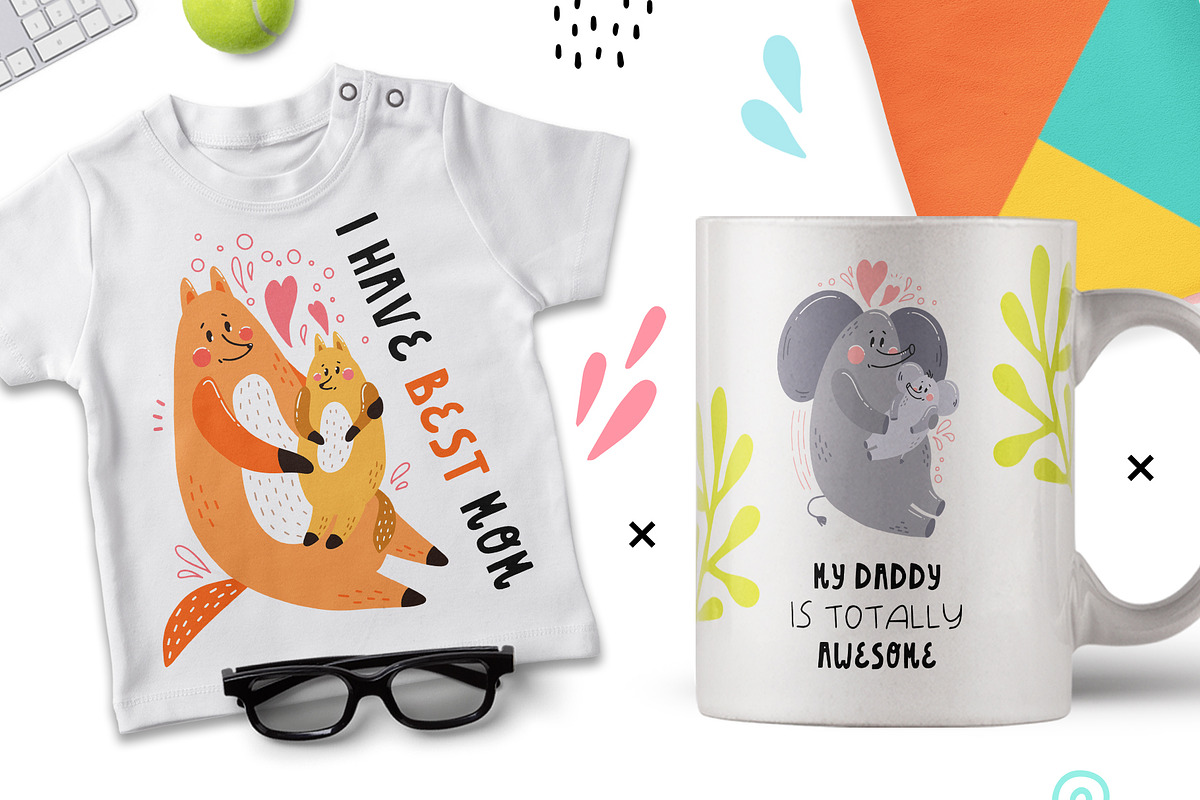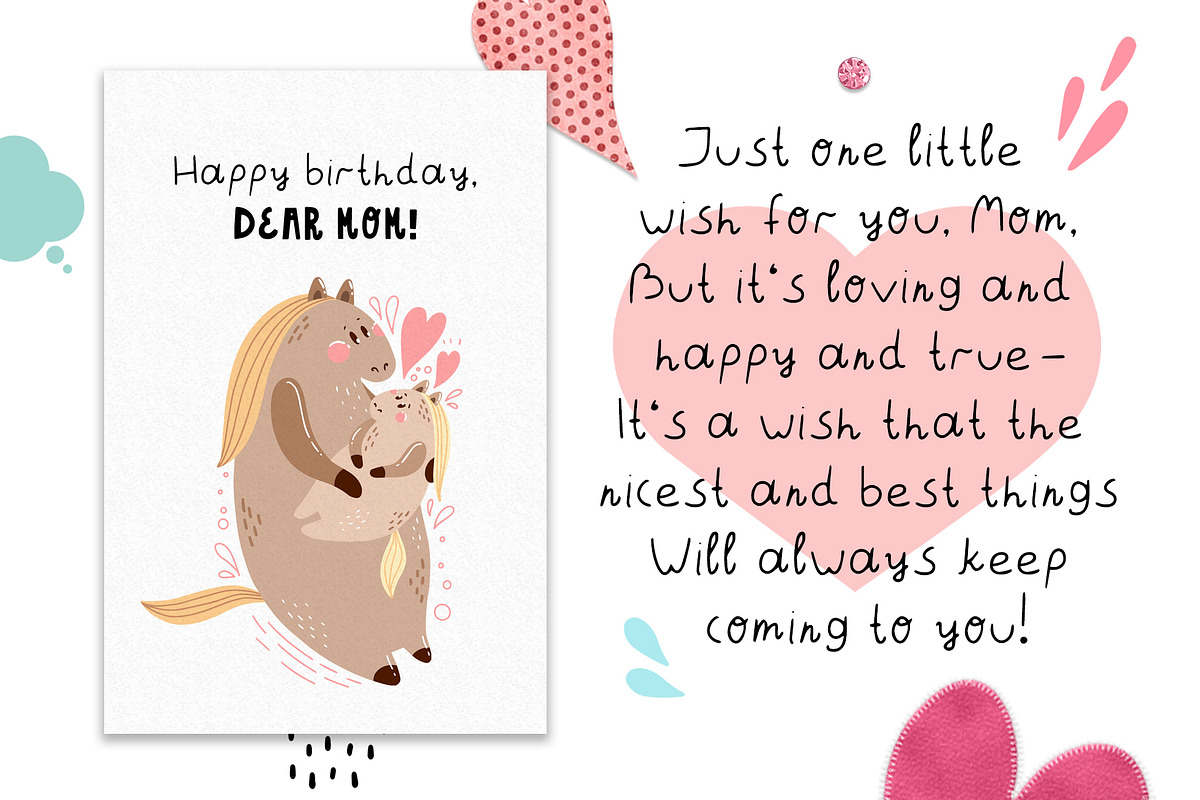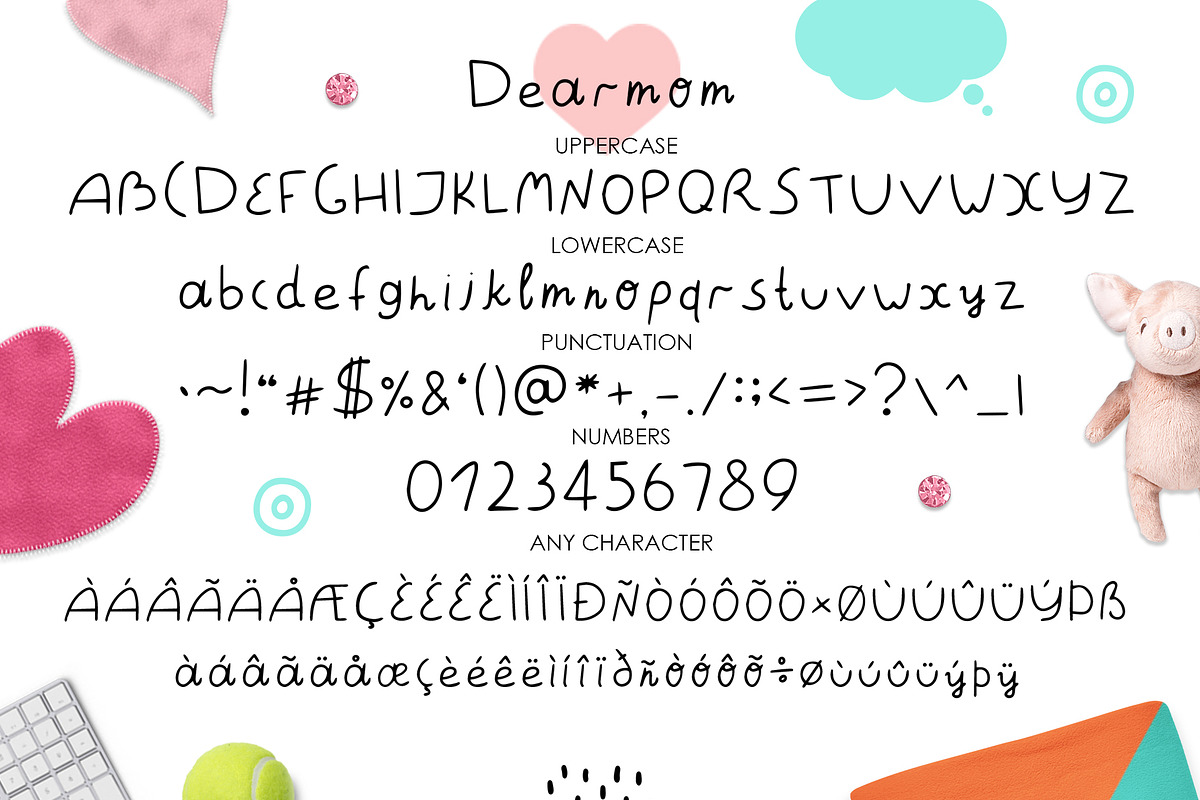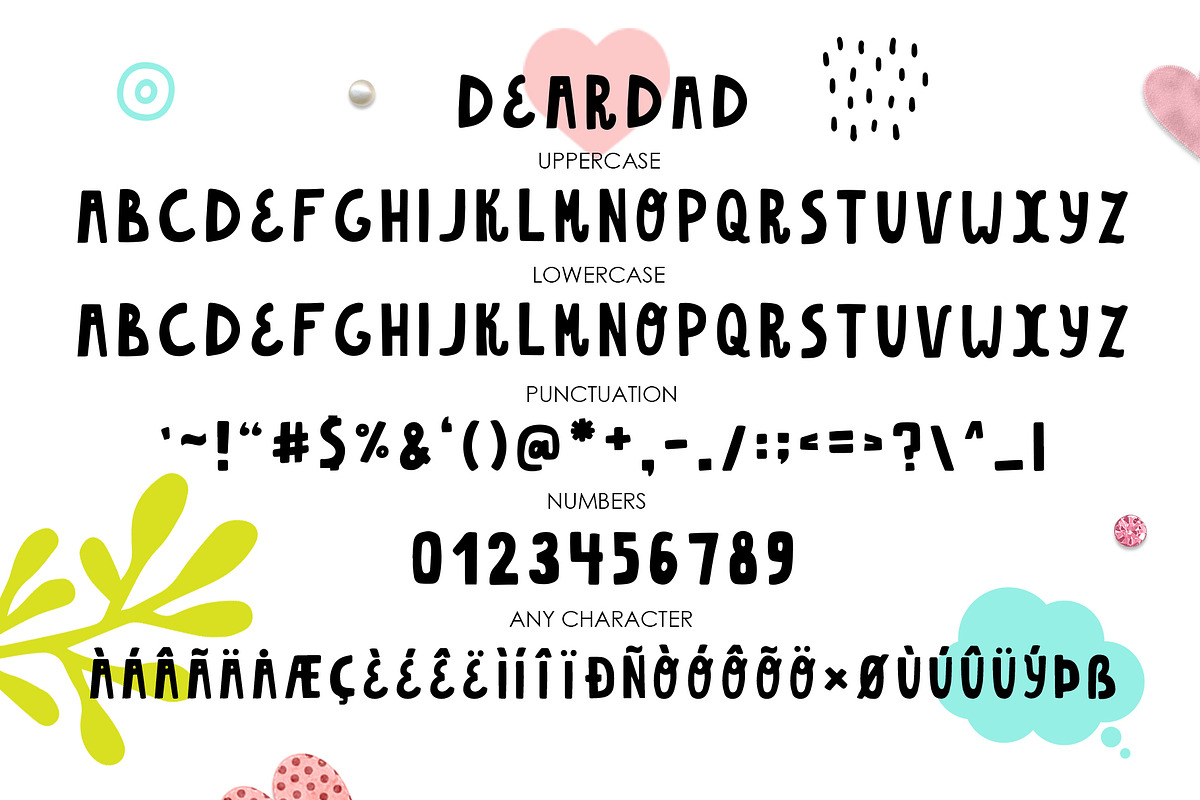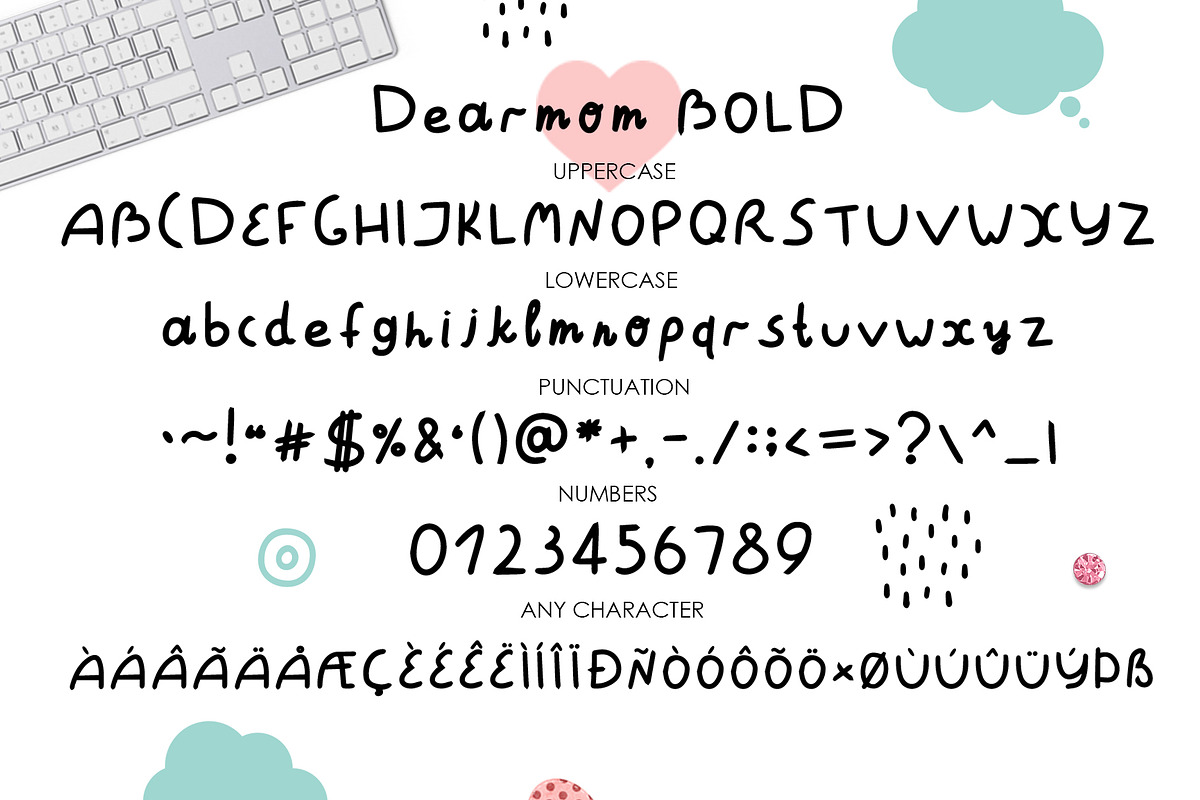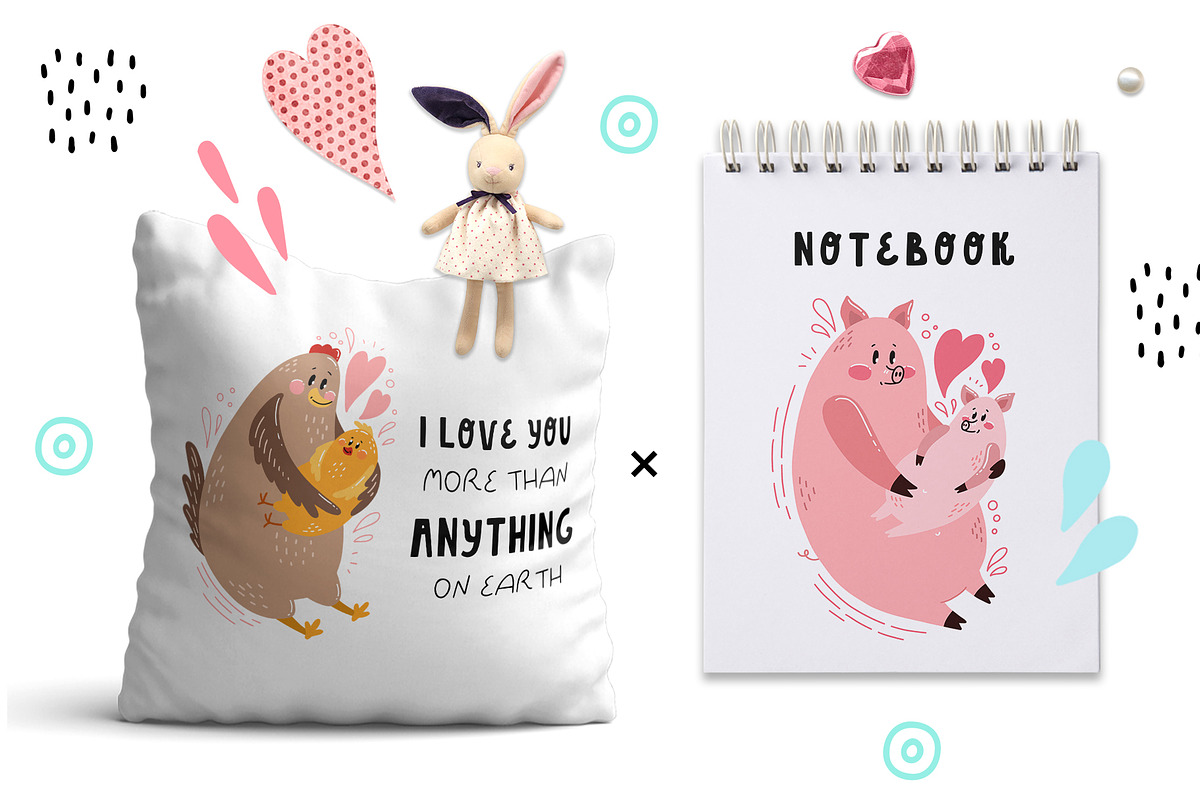
Dearmom & Deardad - Baby duo font
Hi! I present to your attention an amazing set of fonts-Dearmom and Deadad - Baby font duo!
These cute fonts are made by hand and with great love especially for your loved ones! In the set I also included a surprisingly cute animals with their cubs! The sweetest graphics is suitable for congratulations on mother's Day and father's Day! Congratulate your favorite fathers and mothers just like that! They will be happy! Create your own unique design of cards, posters, wishes, invitations, interior decorations, textiles, fabric, brochures, gift wrapping, badges and more!
- Deardad Regular
- Dearmom Regular
- Dearmom Bold